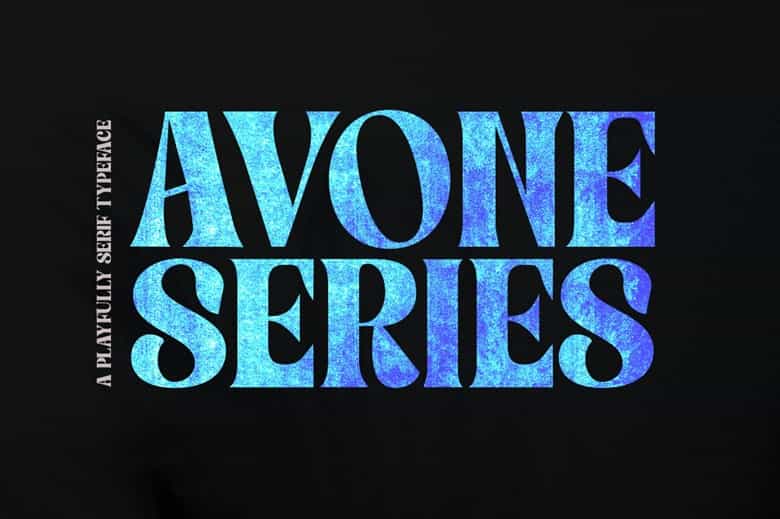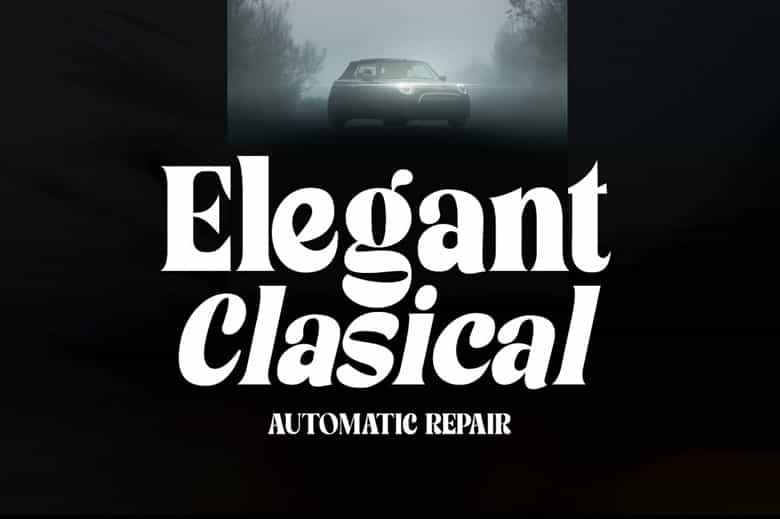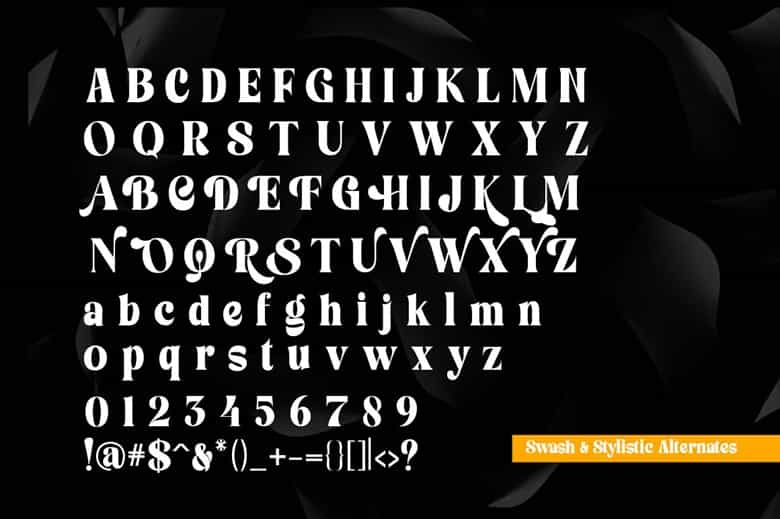
Avone Series is a vintaged playfully serif typeface, with clean letterpress style, Avone original and Avone series both with regular fonts and with additional ligatures and symbols. The Avone Series is a great font for any form of branding purposes, logos, banners, advertisement, t-shirts and the like.